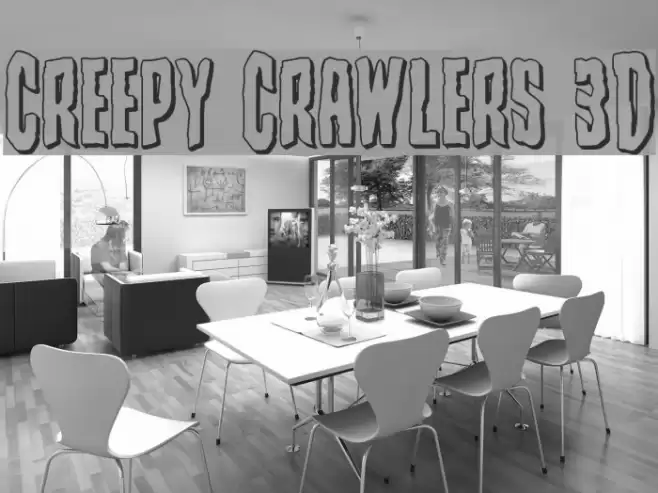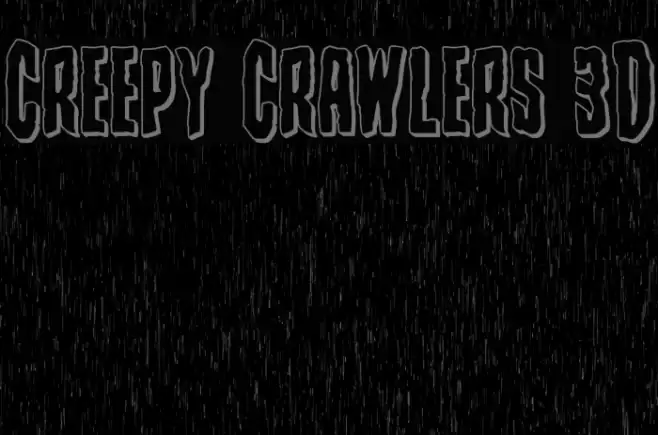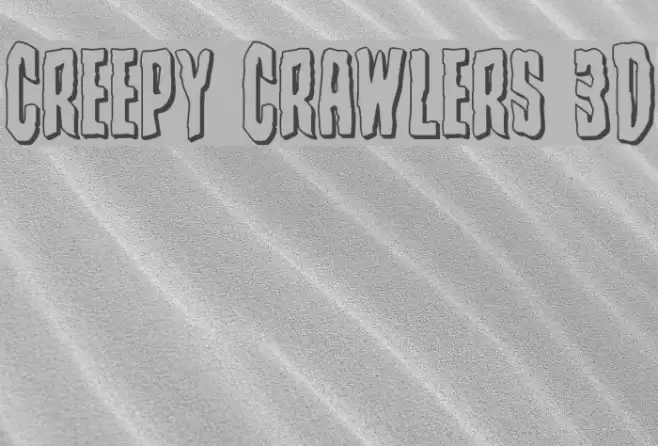
Creepy Crawlers 3D Font
Creepy Crawlers 3D Description
This font features a bold, playful design with a distinct 3D effect that gives each character a shadowed, raised appearance. The letters are thick and slightly irregular, adding a quirky, hand-drawn feel. The uppercase and lowercase letters maintain a consistent style, with exaggerated curves and angles that enhance the font's dynamic look. The numbers and special characters follow the same design principles, ensuring uniformity across all glyphs. This font's unique style makes it ideal for projects that require a fun, eye-catching aesthetic.
A bold, playful font with a 3D effect and hand-drawn style from Horror fonts.
- Proposed Projects: Ideal for children's book covers, Halloween-themed designs, posters, and playful branding.